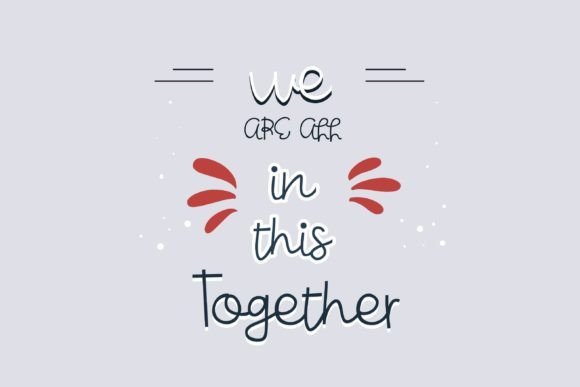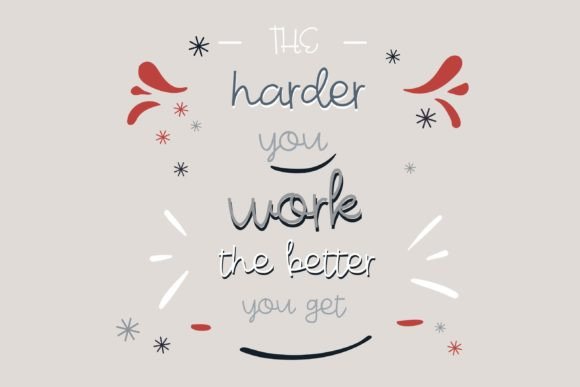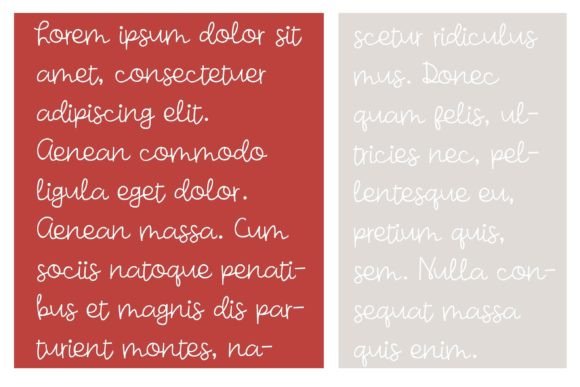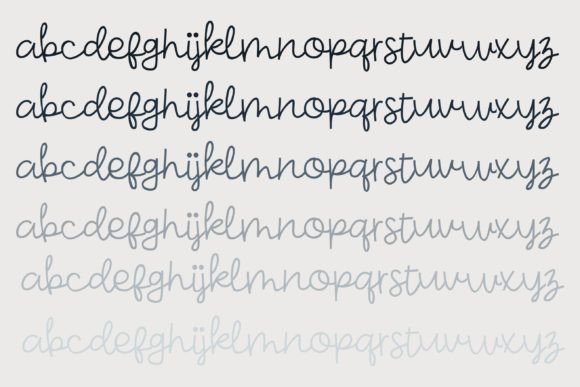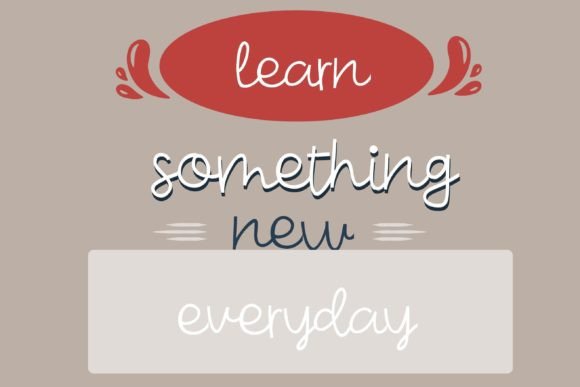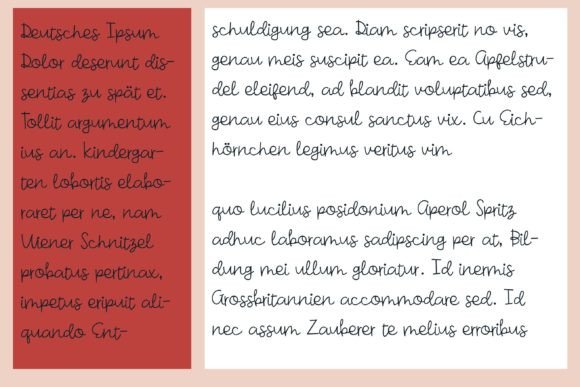
Unleashing the Art of Handwritten Elegance
There’s something special about picking up a pen and putting thoughts onto paper. The feel of the nib gliding across the page, the sound of the ink flowing, and the satisfaction of watching your words take shape. It’s a moment of pure creative joy, and one that designers and artists often strive to capture in their work.
Enter the Bookish Font, a casual, hand-written script that embodies the essence of handwritten elegance. With its easy-going look and feel, this font is perfect for adding a touch of personality to any project. Whether you’re designing wedding invitations, thank you cards, or logos, the Bookish Font is sure to bring a sense of warmth and style to your work.
For designers, the Bookish Font is a valuable asset, offering a versatile and customizable solution for a wide range of design projects. Its natural, stylish look makes it an ideal choice for adding a handwritten feel to any design, from greeting cards to business cards.
Bookish Font Key Features
- Unique Characteristics: Bookish Font features a unique blend of elegance and sophistication, with intricate details and ornate flourishes that evoke the feel of classic literature.
- Font Styles: Bookish Font comes in a range of styles, including regular, italic, bold, and bold italic, allowing users to customize the look and feel of their text to suit their needs.
Bookish Font Review
Overall, I think Bookish Font is a charming addition to any design project, especially those focused on literature and academia. ✨
Here are some things I think it does well:
- Unique aesthetic: Bookish Font has a distinct look that immediately conveys a sense of nostalgia and intellectualism.
- Legibility: It’s surprisingly easy to read, considering its ornate design.
- Compatibility: I’ve used it across various platforms and devices without any issues.
- Limited font sizes: At smaller sizes, the font can become quite difficult to read.
- Lack of bold variants: The font’s bold weight is not as consistent as I’d like.
- Not ideal for body text: While it’s perfect for headlines and titles, it can be overwhelming for large blocks of text.
Overall, I’d say Bookish Font is a solid choice for projects where you want to evoke a sense of classic literature. While it’s not perfect, its unique charm and legibility make it a great addition to any design project.
- Use the Bookish Font for titles and headings to add a touch of elegance.
- Combine the Bookish Font with other fonts to create a unique and eye-catching design.
The Bookish Font is perfect for:
- Book covers and book-related designs.
- Academic and educational materials.
- Wedding invitations and other formal events.